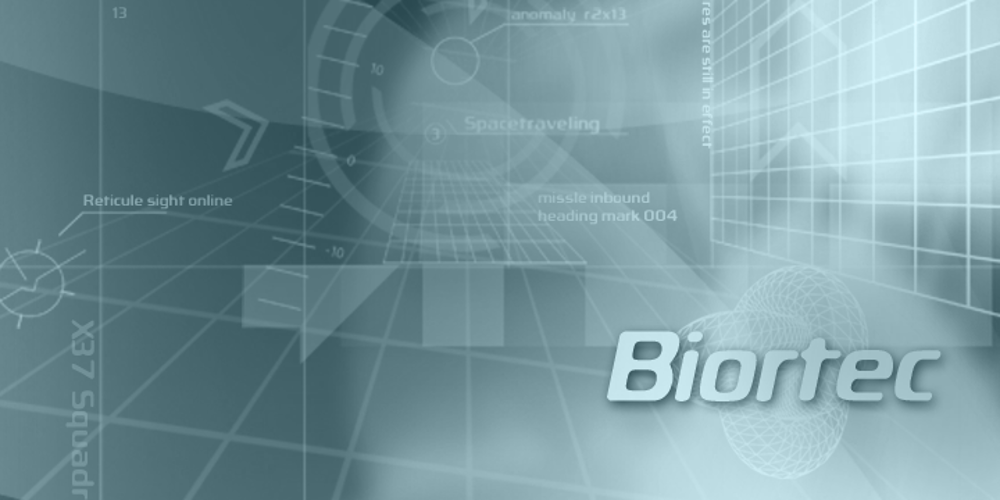
Biortec
Biortec font
Biortec Font Family was designed by Jeremy Dooley and published by insigne. Biortec contains 10 styles and family package options. Biortec was designed to look as though it could be used in a futuristic graphical user interface. It could be equally useful as a logotype for a biotech company or some other application.